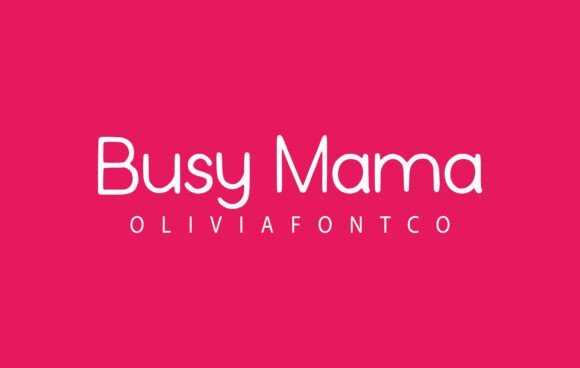
Find Your Creative Voice with the Busy Mama Font
Have you ever been in the midst of brainstorming a new project, only to be stuck on the perfect font to bring your vision to life? You’re not alone. As creatives, we’ve all been there – scrolling through font libraries, trying to find that elusive combination of style and legibility. But what if we told you there’s a font that can make all the difference?
Enter the Busy Mama Font, a charming handwritten font with a romantic touch. Expertly designed to elevate your creative ideas, this font is perfect for a variety of designs, from magazine headlines to wedding invitations. Its legibility makes it a great choice for body text, while its unique style ensures it stands out as a title font.
With the Busy Mama Font, designers can add a touch of personality to their work, setting their projects apart from the rest. Whether you’re a seasoned pro or just starting out, this font is a valuable addition to any creative toolkit.
Busy Mama Font Key Features
- Font Style: Busy Mama is a fun, playful sans-serif font designed for mothers and parents.
- Unique Characteristics: The font features a mix of bold and cursive elements, making it perfect for creating eye-catching and expressive designs.
- Font Family: Busy Mama Font is a single-family font, making it easy to use and integrate into your designs.
- Scalability: Busy Mama Font is designed to be scalable, allowing you to use it for a wide range of applications, from small social media graphics to large-scale posters.
Designer Review: Busy Mama Font
I recently had the chance to review the “Busy Mama Font” and I must say, it’s an interesting addition to the world of sans-serif fonts. ✨ The font’s rounded edges and friendly feel immediately drew me in, making it perfect for a variety of applications, from children’s books to social media graphics.
Here are some things that really work well with this font:
- ✨ The font’s versatility: it works well in both bold and regular weights, making it easy to use in different contexts.
- ✨ The friendly feel: the rounded edges and soft curves make the font feel approachable and inviting.
- ✨ The variety of styles: the font comes in a range of styles, from informal to formal, making it easy to find the right fit for your project.
- ⚠️ The font may not be the best choice for complex or technical content: the rounded edges and soft curves can make it difficult to read in certain contexts.
- ⚠️ The font may not be the most original choice: the design is reminiscent of other popular sans-serif fonts.
Overall, I think the “Busy Mama Font” is a solid choice for designers who need a friendly, approachable font for their projects. While it may not be the most original or complex font, it’s a great option for a variety of applications.
Busy Mama Font: A Practical Application Guide
Getting the Most Out of Busy Mama Font
For best results, use Busy Mama Font in combination with a bold and bright color scheme to create a playful and eye-catching design.
Experiment with different font sizes and styles to add emphasis and hierarchy to your design.
Busy Mama Font is perfect for:
Blog posts and social media graphics
Children’s party invitations and decorations
Women’s empowerment and self-care branding
Alternatives to Busy Mama Font
Great Vibes is a handwritten font that conveys a sense of elegance and sophistication. It’s perfect for designers who want to create a warm and inviting atmosphere. Compared to Busy Mama Font, Great Vibes has a more refined and polished look, making it suitable for high-end branding and advertising.
Cobblestone
Cobblestone is a distressed font that adds a touch of ruggedness and nostalgia to any design. It’s ideal for designers who want to create a vintage or retro look. Unlike Busy Mama Font, Cobblestone has a more weathered and worn appearance, making it perfect for projects that require a sense of history and tradition.
Alex Brush is a modern script font that exudes confidence and sophistication. It’s perfect for designers who want to create a sense of luxury and high-end style. Compared to Busy Mama Font, Alex Brush has a more streamlined and contemporary look, making it suitable for high-end branding, advertising, and editorial design.